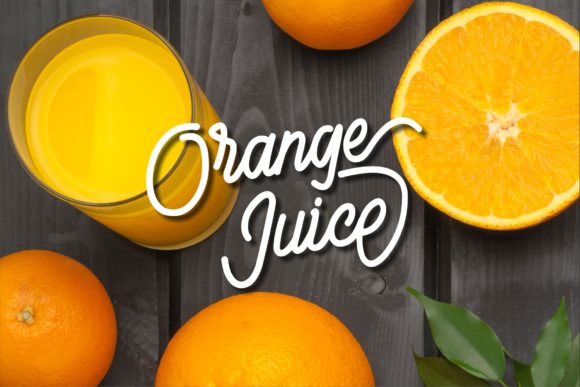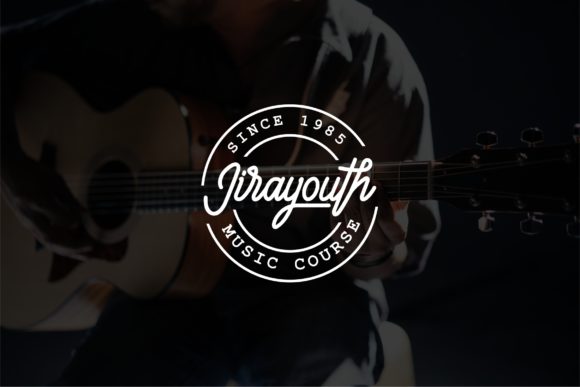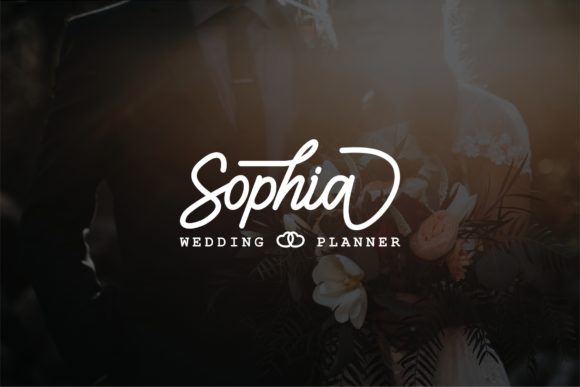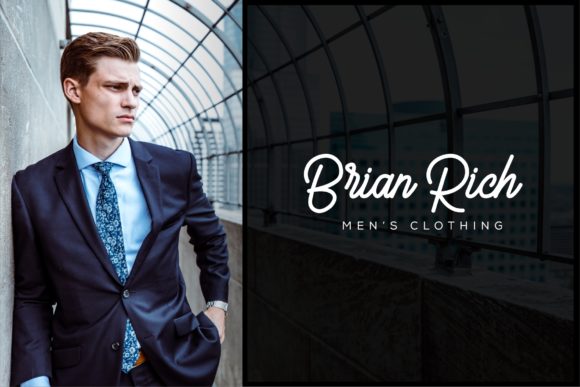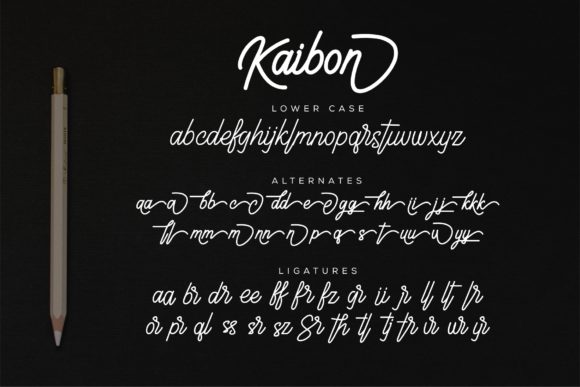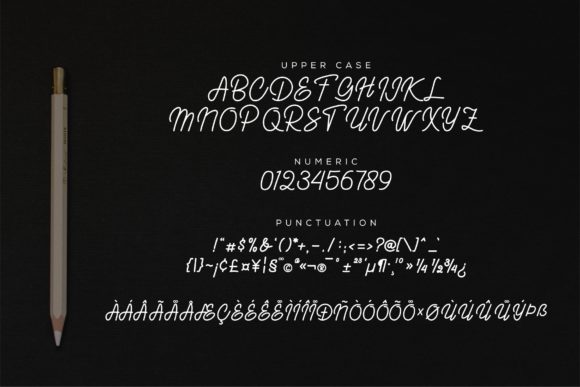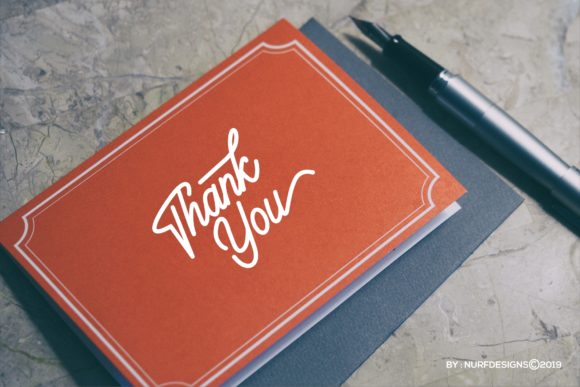
Kaibon Font
About Kaibon Font
The Kaibon is a modern and stylistic signature font with an elegant and feminine feel.
It’s perfect for branding, logo, wedding invites, magazines, quotes, posters, signature, title and much more!